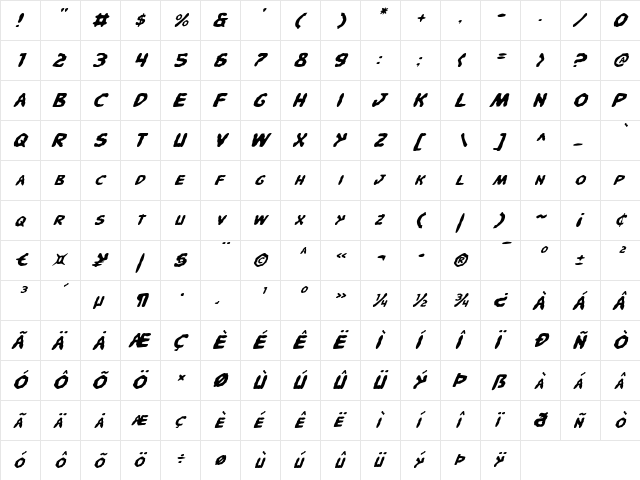
Pandemonious Puffery Italic Italic
Design Context for Pandemonious Puffery Italic Typeface
Pandemonious Puffery Italic is a composed and adaptable typeface that performs quietly and consistently across a wide range of design contexts. The dynamic lean of this cut emphasises speed and emphasis in any layout.
Pro Tip: Try Pandemonious Puffery Italic for annotation and caption copy alongside an upright companion — the contrast in angle creates a dynamic but ordered typographic system.